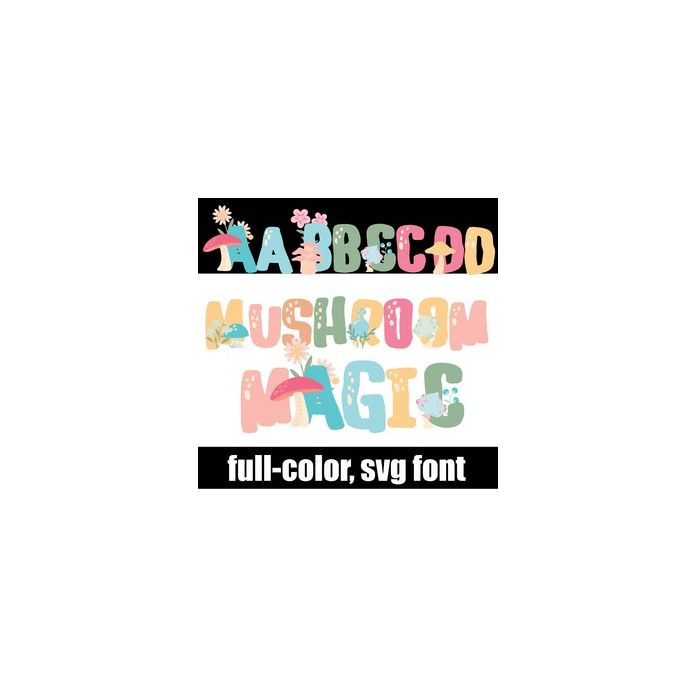
This pretty pastel font features florals and mushrooms. There is an alt case with additional colors that you can access through your system or Silhouette's glyph map.